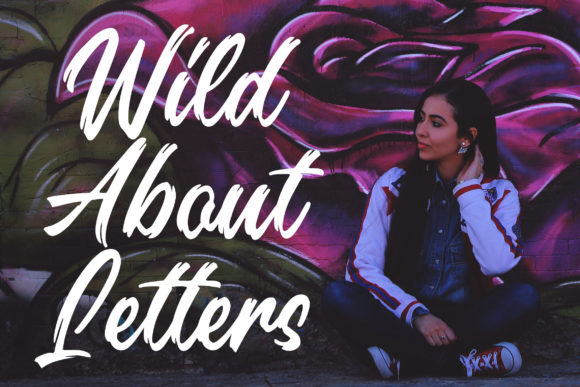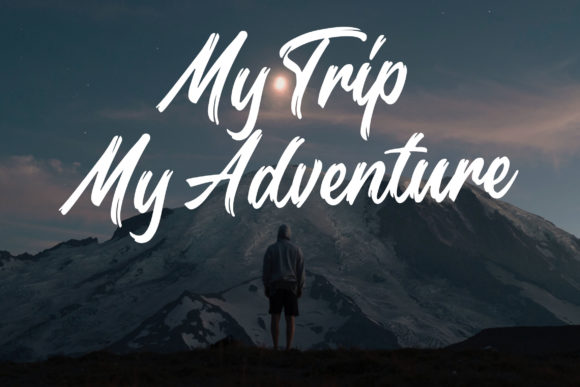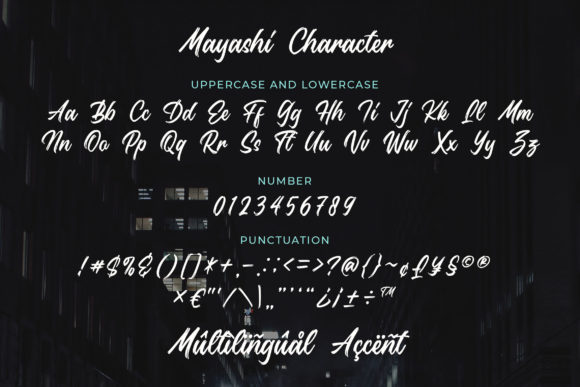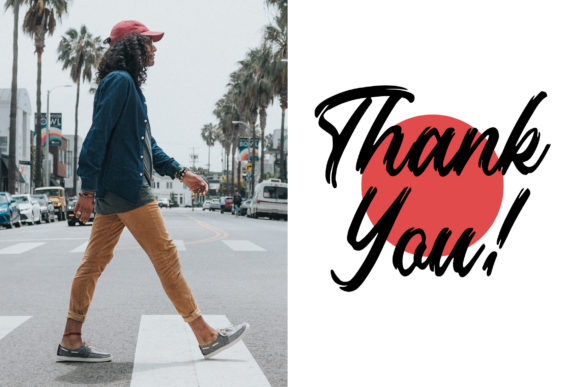
Introduction to Mayashi Font
Have you ever found yourself in a creative haze, staring at a blank canvas or a sheet of paper, searching for the perfect font to bring your project to life? That’s exactly what happened to me last weekend, while working on a handmade card for my best friend’s birthday. I wanted something elegant, yet playful, to match her bubbly personality. That’s when I stumbled upon the Mayashi Font, and my design world was forever changed.
With its friendly and modern script style, the Mayashi Font is a valuable resource for designers looking to add a romantic touch to their projects. Whether you’re working on a wedding invitation, a birthday card, or a social media graphic, this font is sure to elevate your design and make it stand out. And the best part? It’s available for free download, making it an accessible and high-quality resource for designers of all levels.
From its transparent background to its versatile style, the Mayashi Font is a game-changer for any creative project. So, let’s dive in and explore the world of Mayashi Font, and discover how it can help you take your designs to the next level.
Key Features of Mayashi Font
- High-quality design resource for creative projects, perfect for use in graphic design, digital art, and typography.
- Mayashi Font features a transparent background, allowing for easy layering and manipulation in design software.
- Includes a range of glyphs and characters, making it suitable for use in a variety of languages and creative projects.
- Designed with high resolution in mind, Mayashi Font is ideal for use in high-quality print materials, such as business cards, brochures, and posters.
Honest Review: Mayashi Font
As a designer, I’m always on the lookout for high-quality design resources to elevate my creative projects. Recently, I had the chance to try out the Mayashi Font, and I must say it’s been a pleasant surprise.
One of the standout features of this font is its unique and modern design. The Mayashi Font has a distinct aesthetic that sets it apart from other fonts in its category. The clean lines, elegant curves, and attention to detail make it perfect for a variety of creative projects, from logos and branding to typography-heavy designs.
- Unique and modern design
- Clean lines and elegant curves
- Perfect for creative projects, logos, branding, and typography-heavy designs
- Limited font sizes available for download
- No extensive character set (only Latin characters)
Despite its limitations, the Mayashi Font has been a valuable addition to my design toolkit. Its free download and transparent background make it a convenient option for designers who need a reliable font for their creative projects. Overall, I’m impressed with the Mayashi Font, and I’d definitely recommend it to fellow designers.
The Mayashi Font is a free design resource that offers a high-quality, unique font for your creative projects. It features a transparent background, making it an ideal choice for designers looking to add a touch of elegance to their work.
Common Use Cases for Mayashi Font
The Mayashi Font is ideal for use in a wide range of creative projects, including branding, marketing materials, and social media graphics. It’s also a great choice for designers looking to add a touch of elegance to their work.